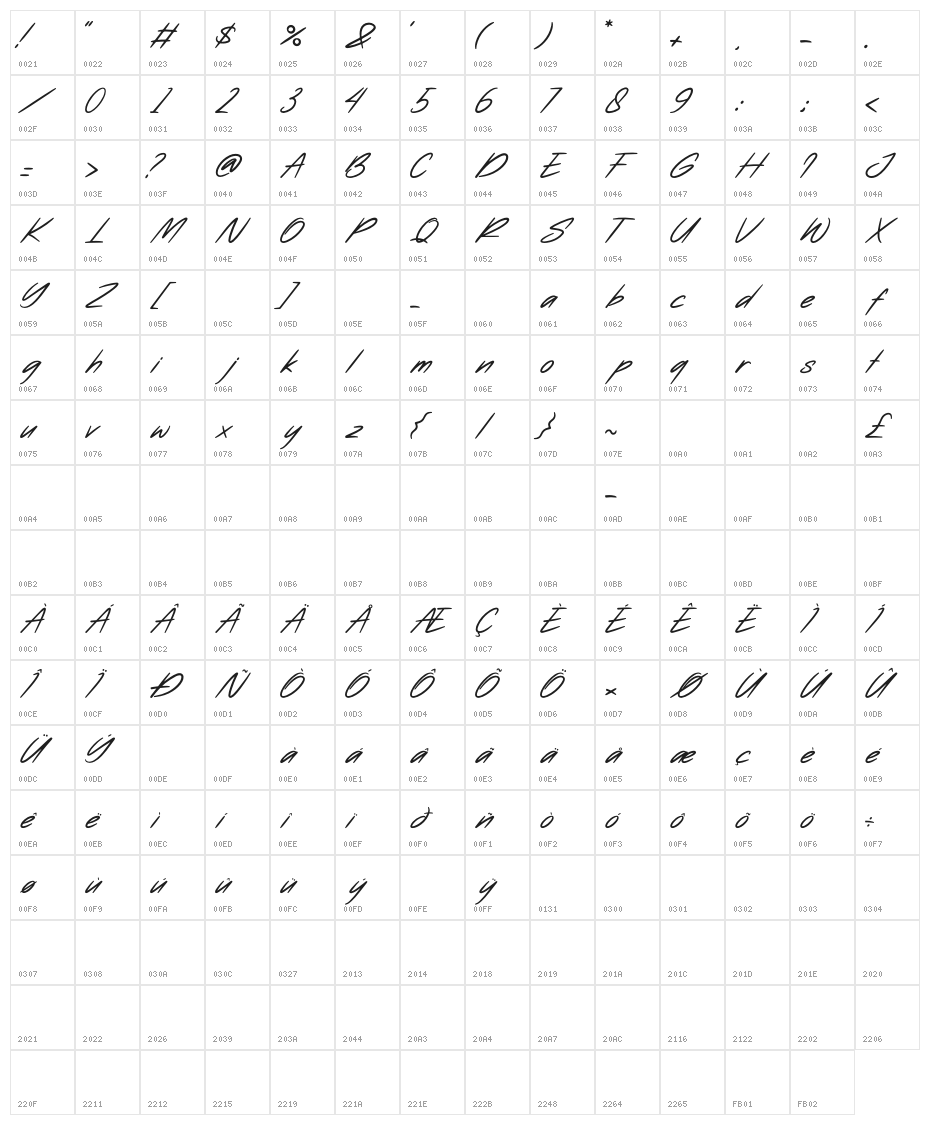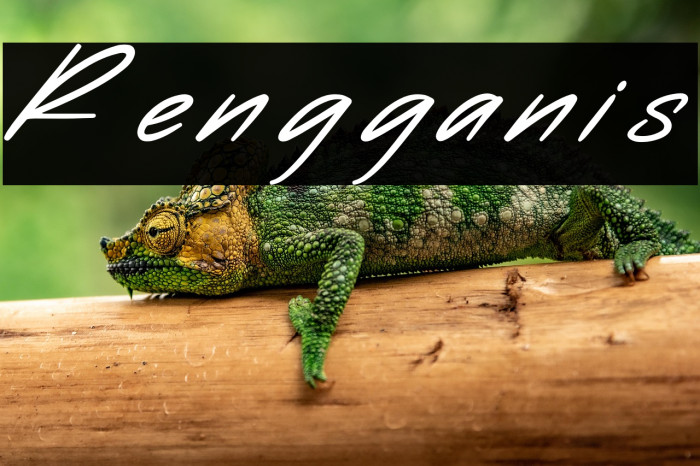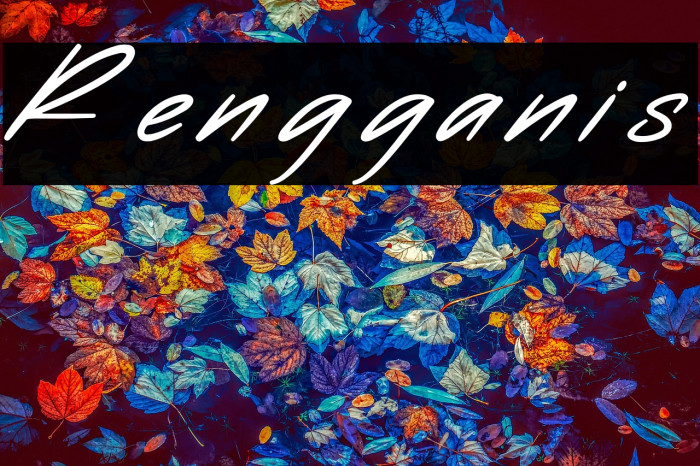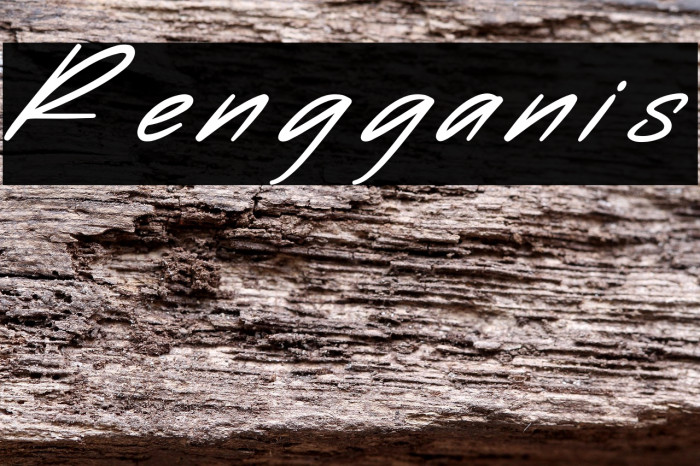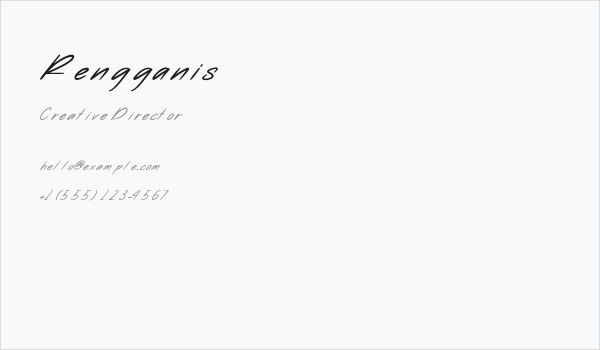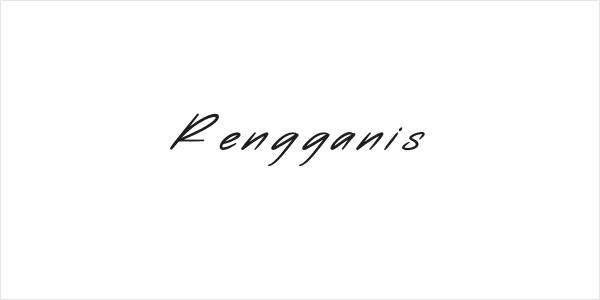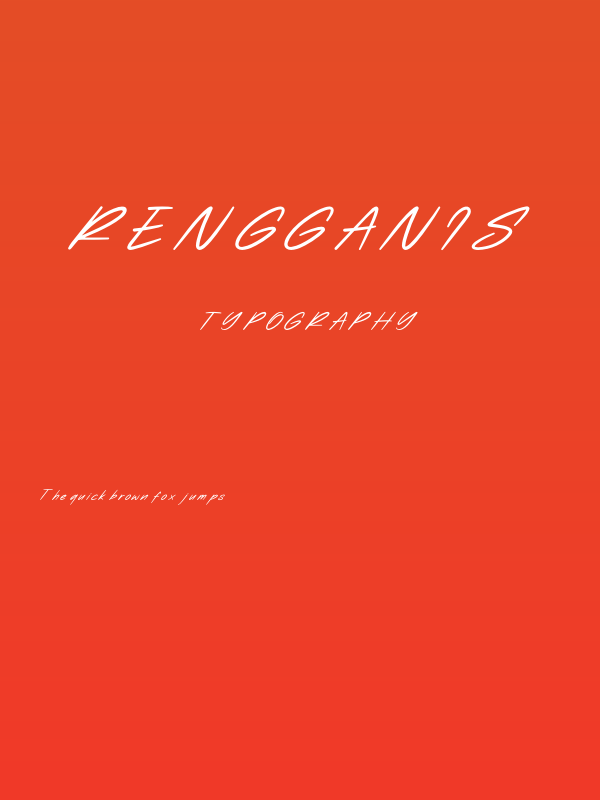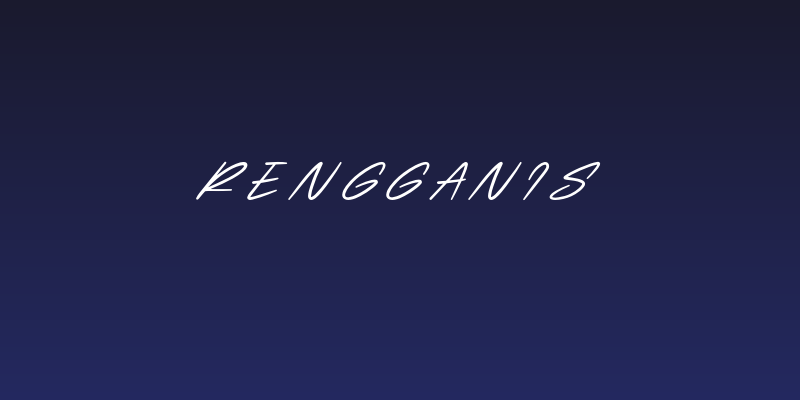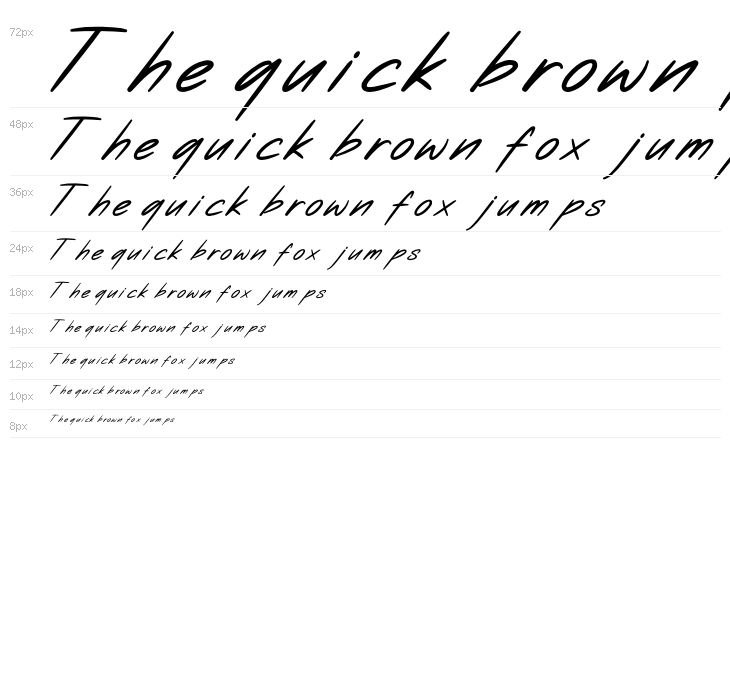
Rengganis Font
Rengganis Description
This font features a fluid and elegant script style, characterized by its smooth, flowing lines and slight slant, giving it a handwritten appearance. The uppercase letters are distinct and stylish, while the lowercase letters maintain a consistent flow, enhancing readability. The numerals and special characters are crafted with the same attention to detail, ensuring uniformity across all elements. This font exudes a sense of sophistication and personal touch, making it ideal for projects that require a personal or artistic flair.
| Overall Style | Elegant, Handwritten |
| Proposed Projects | Ideal for wedding invitations, greeting cards, personal branding, and artistic projects. |